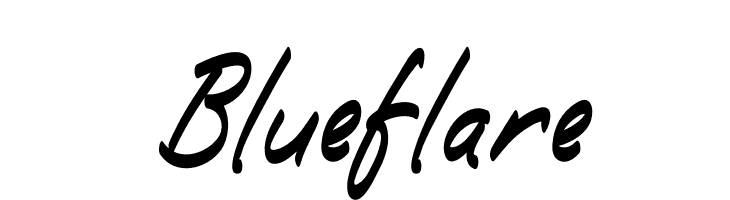
A bold, expressive script font with fluid, cursive strokes and elegant style.
An elegant serif font with a modern outline design.
An elegant italic outline font with a refined and artistic style.
A bold, brush-style font with dynamic, hand-painted strokes.
A playful, handwritten-style font with rounded, informal letterforms.
A playful, handwritten font with rounded edges and a casual style.
A sophisticated script font with fluid, cursive strokes and elegant flourishes.
An elegant, flowing script font with a natural handwriting style.
A refined, cursive script with tall, slender characters and a handwritten feel.
A playful, whimsical handwritten font with flowing strokes.
An elegant and decorative serif font with high contrast and unique character designs.
A graceful script font with flowing, interconnected letterforms and elegant swashes.
A serif font with a blend of classic and modern elements, featuring distinct serifs and moderate contrast.
A modern font with artistic curves and angular elements, offering a playful yet functional design.
A playful, rounded font with smooth curves and a friendly appearance.
A bold, brush-style font with dynamic and expressive strokes.
A bold, geometric font with a futuristic and industrial style.
An elegant script font with flowing, ornate cursive letters and intricate flourishes.
An elegant script font with intricate loops and swashes, ideal for artistic projects.
A bold, energetic script font with a handwritten style.
A bold, italicized handwritten font with dynamic strokes.
A bold, dynamic script font with a modern and flowing style.
A bold, decorative font with intricate patterns and a three-dimensional effect.
( Thirtypath - www.thirtypath.com )
A fluid and elegant script font with smooth, connected strokes.
( Fonts by DmLetter31 - Dimas Prasetyo - Personal-use only. For commercial use please contact owner. )
A bold, cursive script font with elegant, flowing letterforms.
A bold, flowing script font with elegant curves and dynamic strokes.
A bold, flowing script font with interconnected letters and a lively, dynamic style.
( Fonts by Maulana Creative - Gilang Maulana - Personal-use only. For commercial use please contact owner. )
A bold, gothic blackletter font with intricate, angular designs.
( Fonts by Prioritype Co )
Playful handwritten font with tall, narrow letters.
( Fonts by AlifRyanZulfikar - Personal-use only. For commercial use please contact owner. )
An elegant, flowing script font with modern curves and delicate loops.
A graceful and elegant script font with fluid, connected strokes.
A decorative and whimsical script font with elegant swirls and flourishes.